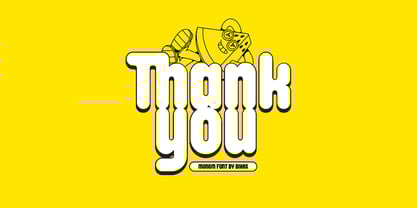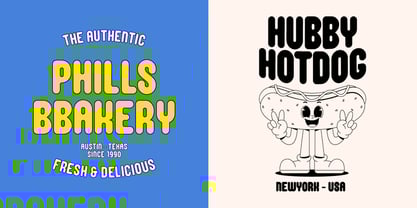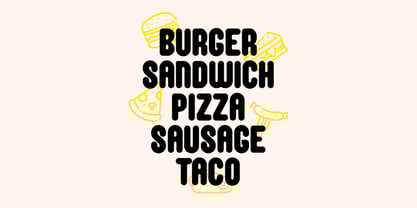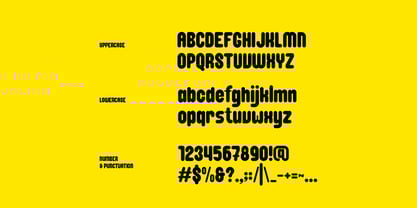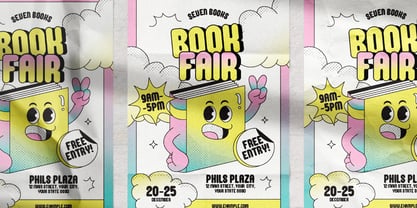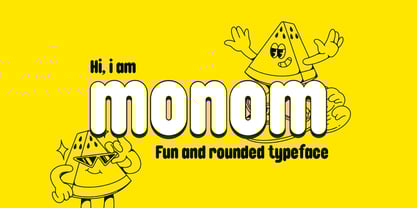
Monom
by Dikas Studio
The Monom Font Family was designed by Andika Setiawan and published by Dikas Studio. Monom contains 2 styles and family package options. More about this family
Monom - Retro Playfull Font
Monom is a rounded sans-serif font that brings a bold and cheerful touch to any project. Its playful character makes it perfect for retro and child-friendly themes, adding a sense of fun and energy to your work. Ideal for posters, food menus, logos, badges, labels, and more, Monom is the perfect choice for designs that need a lively, vibrant edge.
Designers: Andika Setiawan
Foundry: Dikas Studio